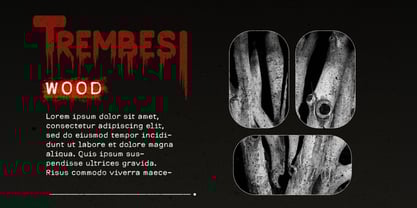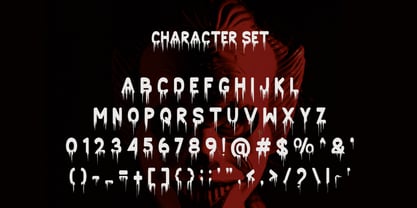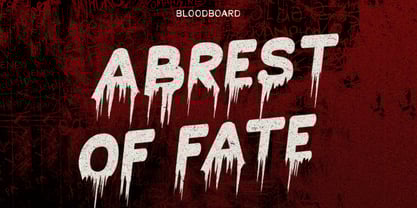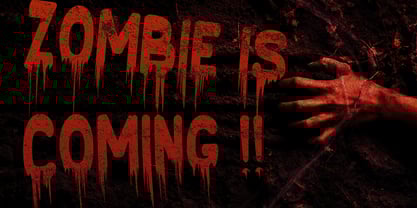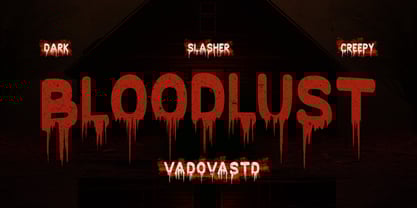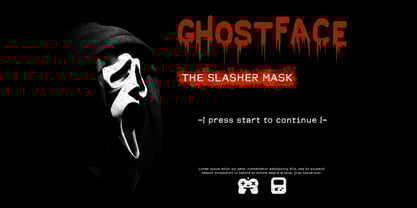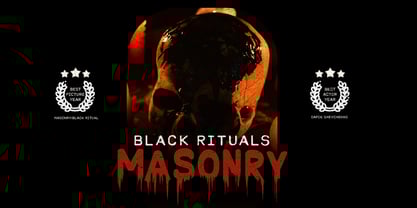
Bloodlust
by Vadova Std
The Bloodlust Font Family was designed by and published by Vadova Std. Bloodlust contains 1 styles. More about this family
Elevate your designs with Bloodlust Horror Creative Font, a horror-inspired typeface that evokes fear, suspense, and a chilling atmosphere. With its dripping, blood-soaked letters and eerie, distressed texture, this font is perfect for horror movie titles, Halloween event posters, and dark-themed branding. Designed to capture the essence of slasher films and haunted stories, Bloodlust creates an ominous and unsettling visual impact. Whether used for spine-chilling graphics or immersive horror experiences, this typeface ensures that terror is at the forefront of any design.
* Uppercase & Lowercase characters
* Numeral & Punctuations